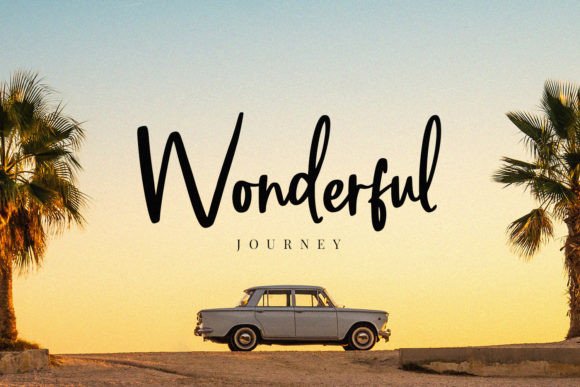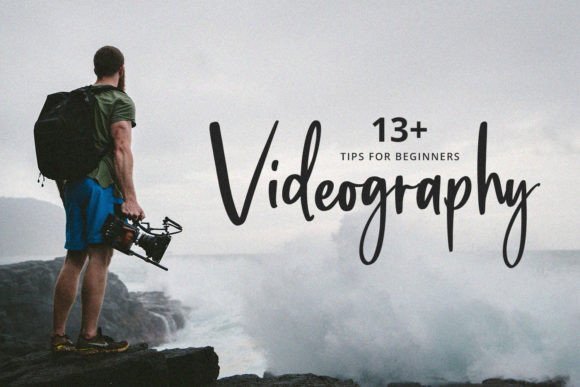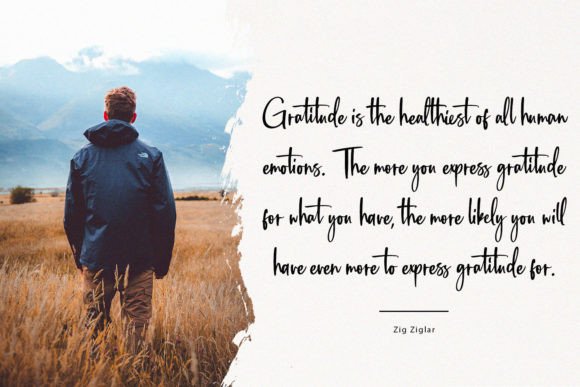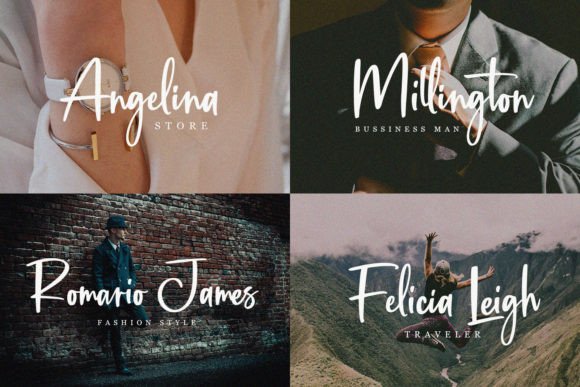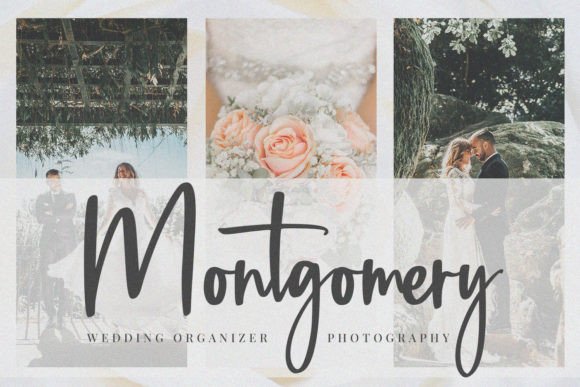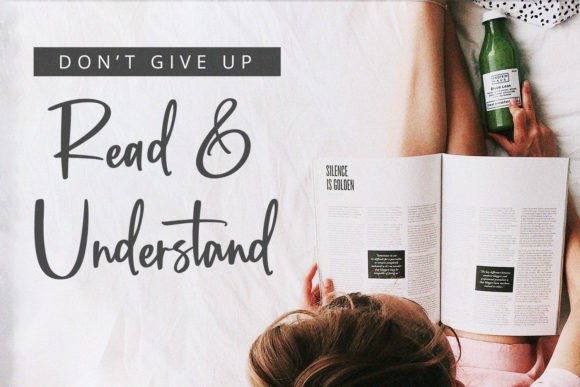
The Perfect Script: Unveiling the Allure of Britney Hills Font
Have you ever found yourself doodling in a notebook, lost in the flow of your own creative expression? The scratch of the pen on paper, the gentle curves of the letters, the feeling of freedom that comes with it. That’s what the Britney Hills Font embodies – the authentic, natural beauty of handwritten script.
Brought to life to capture the essence of elegant typography, Britney Hills Font is more than just a font – it’s a tool for designers to breathe life into their projects. Whether it’s a logo, a poster, or a book cover, this font is perfect for adding a touch of sophistication and whimsy to any design. With its PUA encoding, accessing the full range of glyphs and swashes is a breeze, making it a valuable addition to any designer’s toolkit.
Britney Hills Font Key Features
- Unique Characteristics: Distressed, vintage-inspired design with subtle texture and subtle wear effects
Britney Hills Font Review
Britney Hills Font has a certain charm to it, ✨ especially when used for feminine and elegant projects. The font’s rounded edges and soft curves give it a friendly, approachable feel that can work well in a variety of contexts. The font’s script-like features also add a touch of whimsy and personality to text, making it suitable for creative projects such as invitations, greeting cards, and other similar applications.
However, there are some limitations to consider. ⚠️ The font may not be the best choice for projects that require a more modern or edgy look, as its traditional feel may come across as dated. Additionally, the font’s letterforms can be quite decorative, which may make it difficult to read at smaller font sizes or in situations where legibility is a priority. Finally, the font’s availability in only a few weights and styles may limit its versatility in certain design projects.
- ✨ Friendly, approachable feel suitable for feminine and elegant projects
- ✨ Script-like features add a touch of whimsy and personality to text
- ⚠️ May not be the best choice for modern or edgy projects
- ⚠️ Decorative letterforms may affect legibility at smaller font sizes
- ⚠️ Limited availability in weights and styles
Use the Britney Hills Font for designs that require a unique and elegant touch, such as:
Wedding invitations, stationery, and event materials.
Branding and marketing materials for luxury or high-end businesses.
Personal projects that require a touch of sophistication and whimsy.